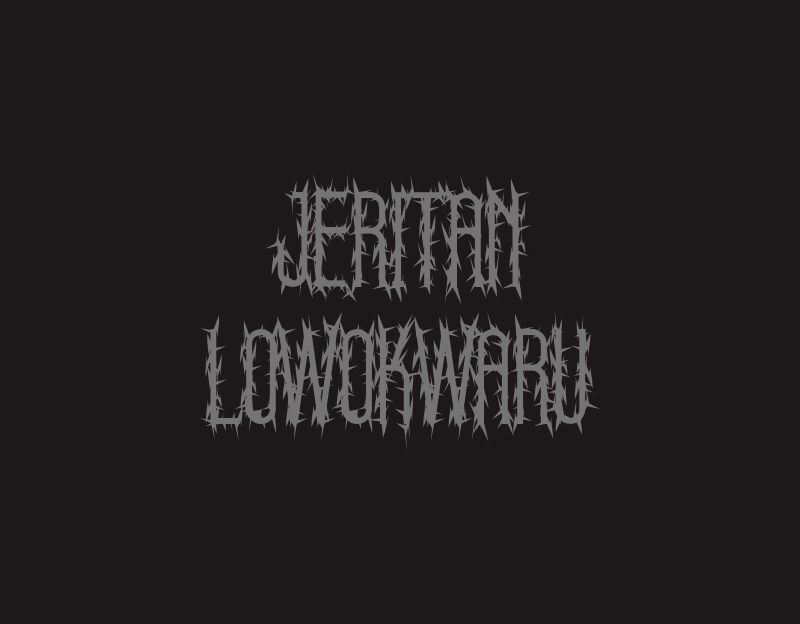
Jeritan Lowokwaru by Afiq Anggriawan is a captivating Gothic-style font that exudes a modern, edgy aesthetic. Its condensed nature creates a striking visual impact, while the intricate, angular letterforms evoke a sense of raw energy and intensity. This font's unique character breathes life into any design, seamlessly blending the traditional with the contemporary.
Jeritan Lowokwaru's versatility makes it a compelling choice for a wide range of design projects, from gritty editorial layouts to bold branding and packaging designs. Its strong, assertive personality lends itself particularly well to applications that demand a sense of impact and edginess, such as album covers, event posters, and product labeling. Designers seeking to infuse their work with a touch of contemporary Gothic flair will find Jeritan Lowokwaru an invaluable addition to their creative toolkit.